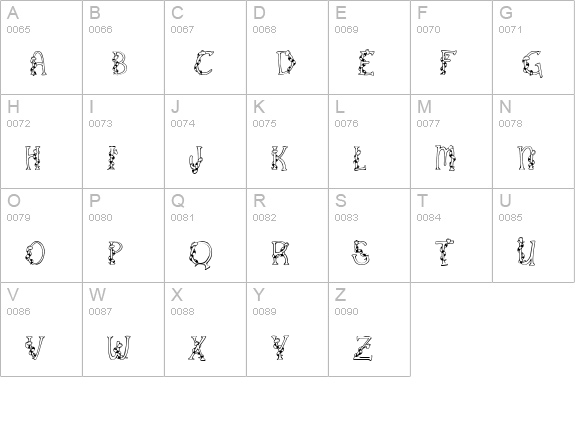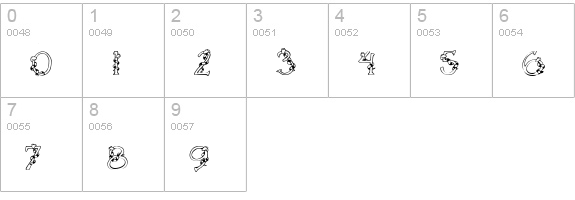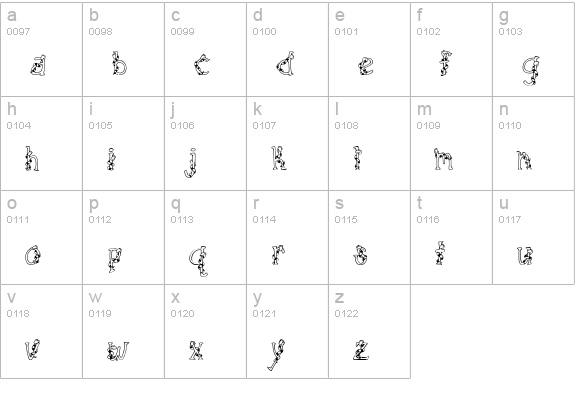
CK Sneaky Snake Font Details
Introducing the CK Sneaky Snake font, a playful and whimsical typeface that is perfect for adding a touch of fun and charm to your projects. This font features curvy lines and a unique design that will make your text stand out. Whether you're working on a children's book, a poster, or a greeting card, CK Sneaky Snake is sure to add a touch of personality to your designs. The best part? CK Sneaky Snake is available for free download at FontsMarket.com. You can easily access this delightful font and start using it in your projects right away. So why wait? Add a touch of playful flair to your designs with CK Sneaky Snake today!